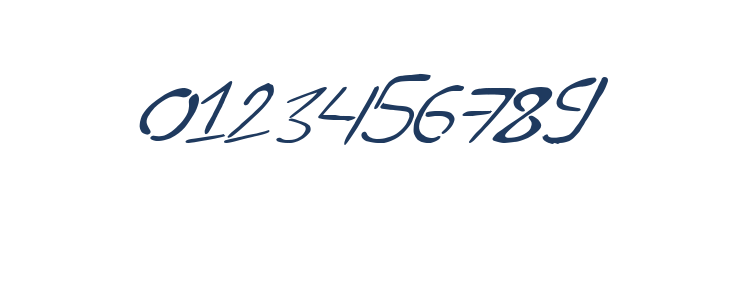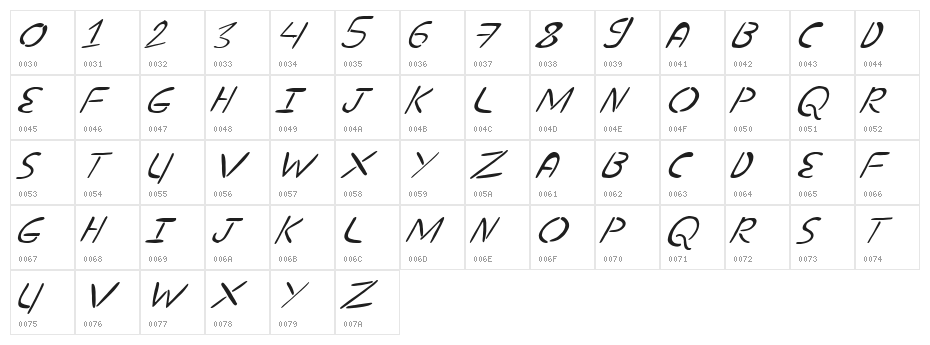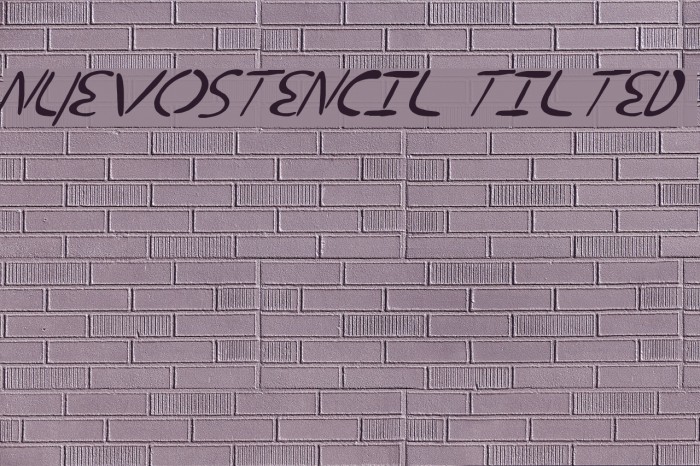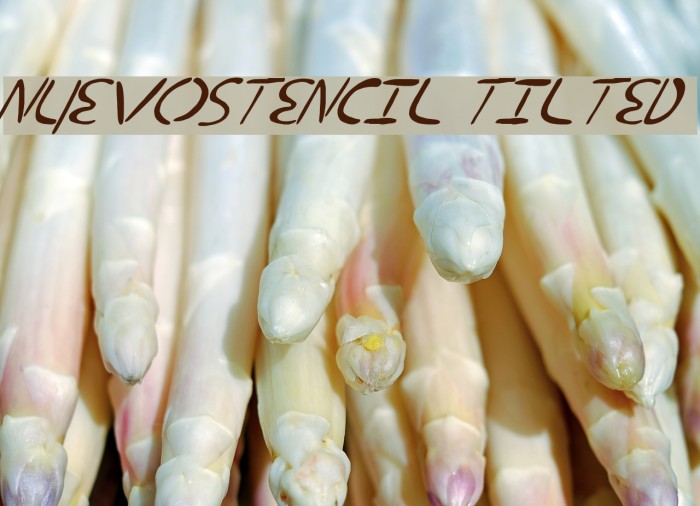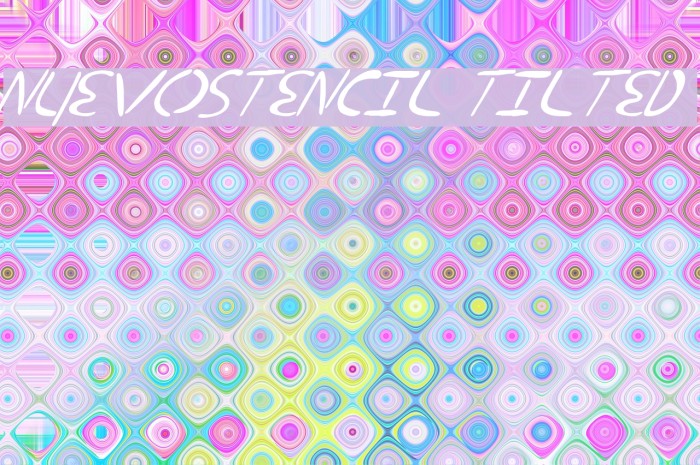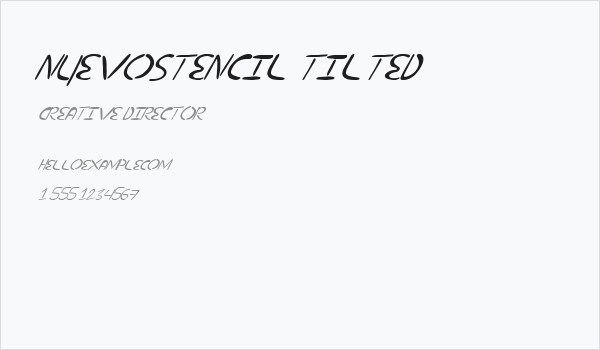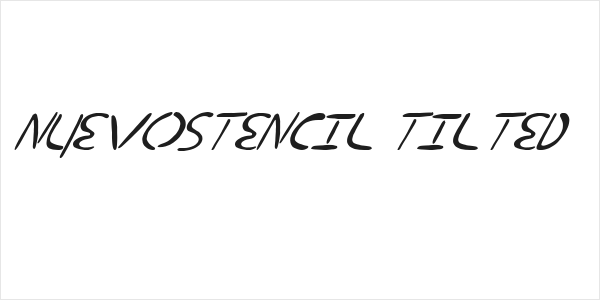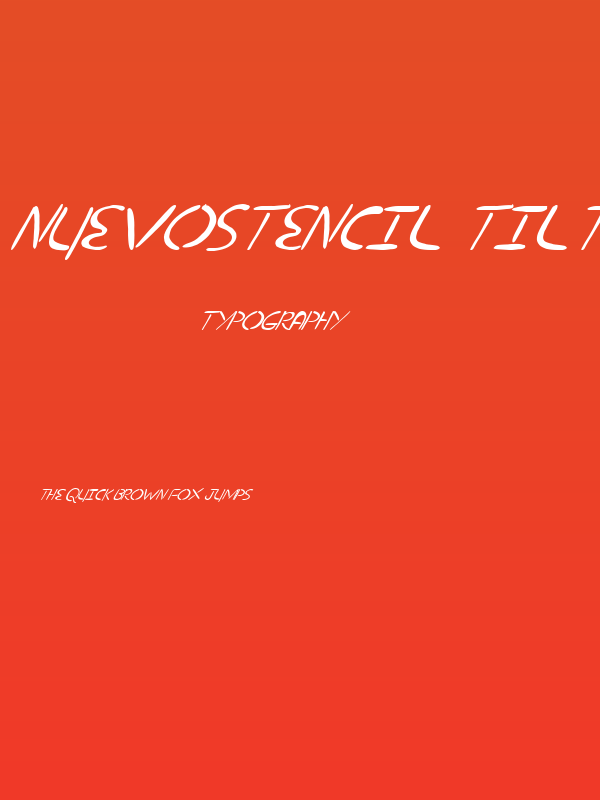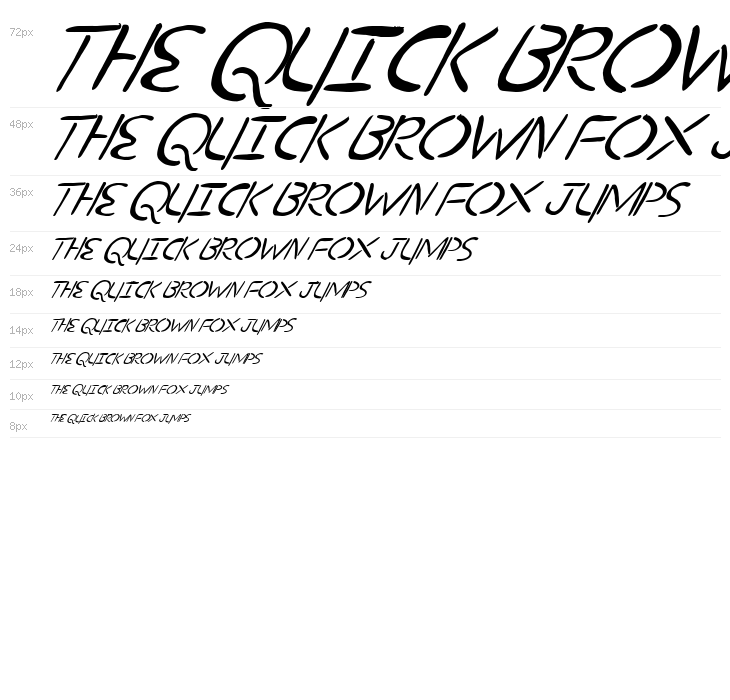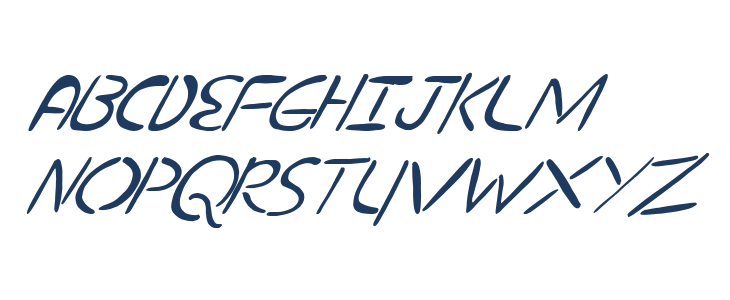
nuevostencil tilted Font
nuevostencil tilted Description
This font features a dynamic and energetic style with a stencil-like appearance, characterized by sharp, angular strokes and a slight forward tilt. The uppercase letters are bold and assertive, while the lowercase letters maintain a consistent flow, creating a harmonious balance. The numerals are distinct and easy to read, with a modern twist that complements the overall design. The special characters are seamlessly integrated, adding versatility to the font. This typeface is ideal for projects that require a contemporary and edgy look, making it suitable for branding, advertising, and creative design work.
| Proposed Projects | Branding, advertising, creative design projects, modern posters, and edgy logos. |